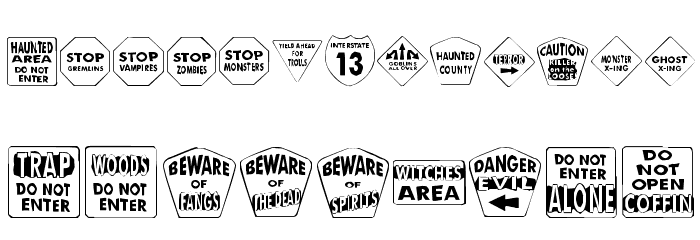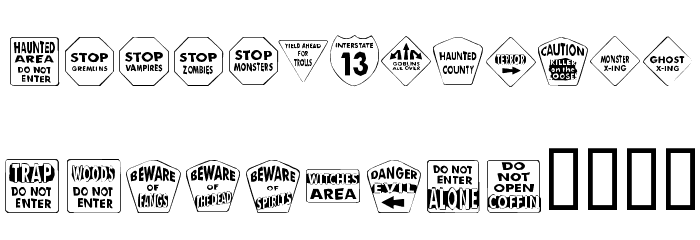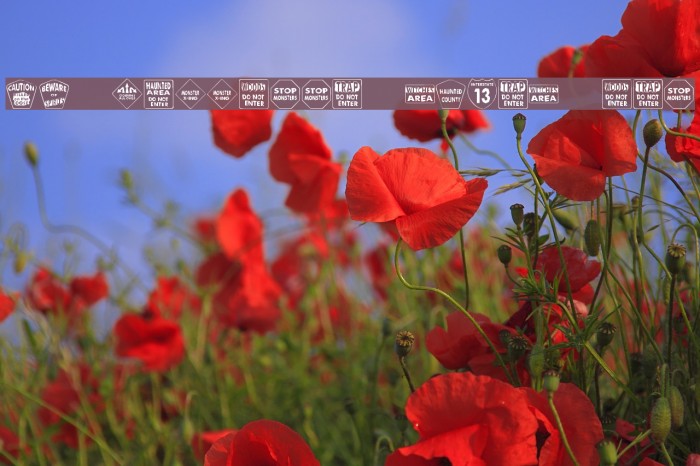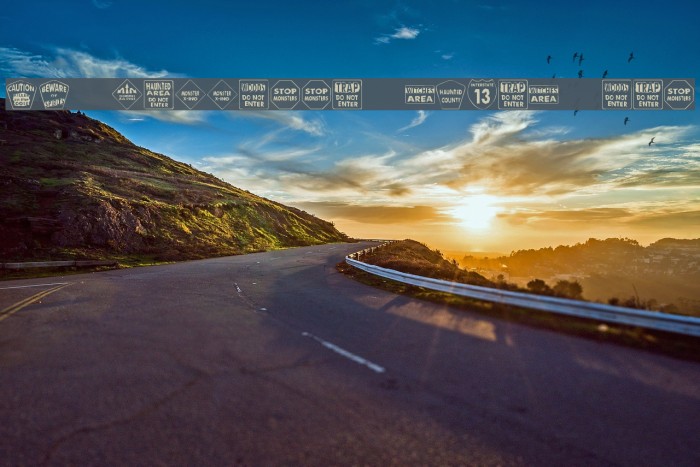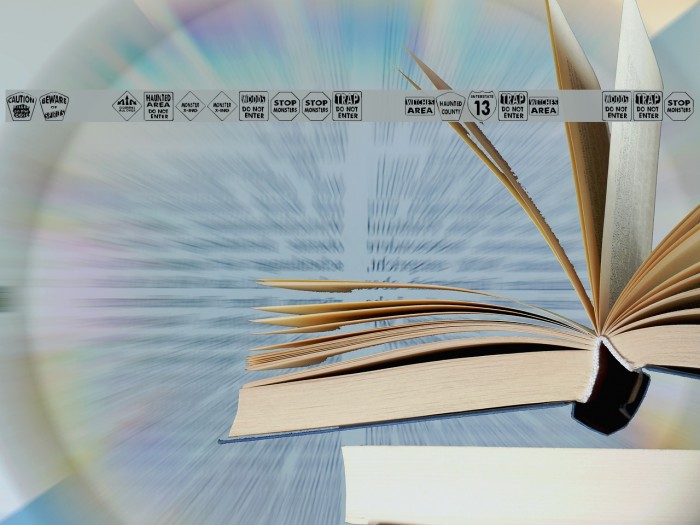
KR Halloween Signs One Font
This collection features a variety of Halloween-themed signs, each with a distinct shape and bold, eye-catching text. The signs include warnings and spooky messages such as 'Haunted Area', 'Stop Gremlins', and 'Beware of Spirits'. The font used is bold and clear, designed to be easily readable from a distance. The letters are capitalized, with a strong emphasis on clarity and impact. The signs are designed to mimic real-life warning signs, adding an element of realism to the Halloween theme. The use of black and white enhances the contrast, making the text stand out sharply against the background. This style is perfect for creating a spooky atmosphere, ideal for Halloween decorations or themed events.
Bold, Halloween-themed signs with clear, impactful text.
- Proposed Projects: Ideal for Halloween decorations, themed events, haunted houses, or spooky party invitations.
- Use Case: Signage, Event decorations, Invitations